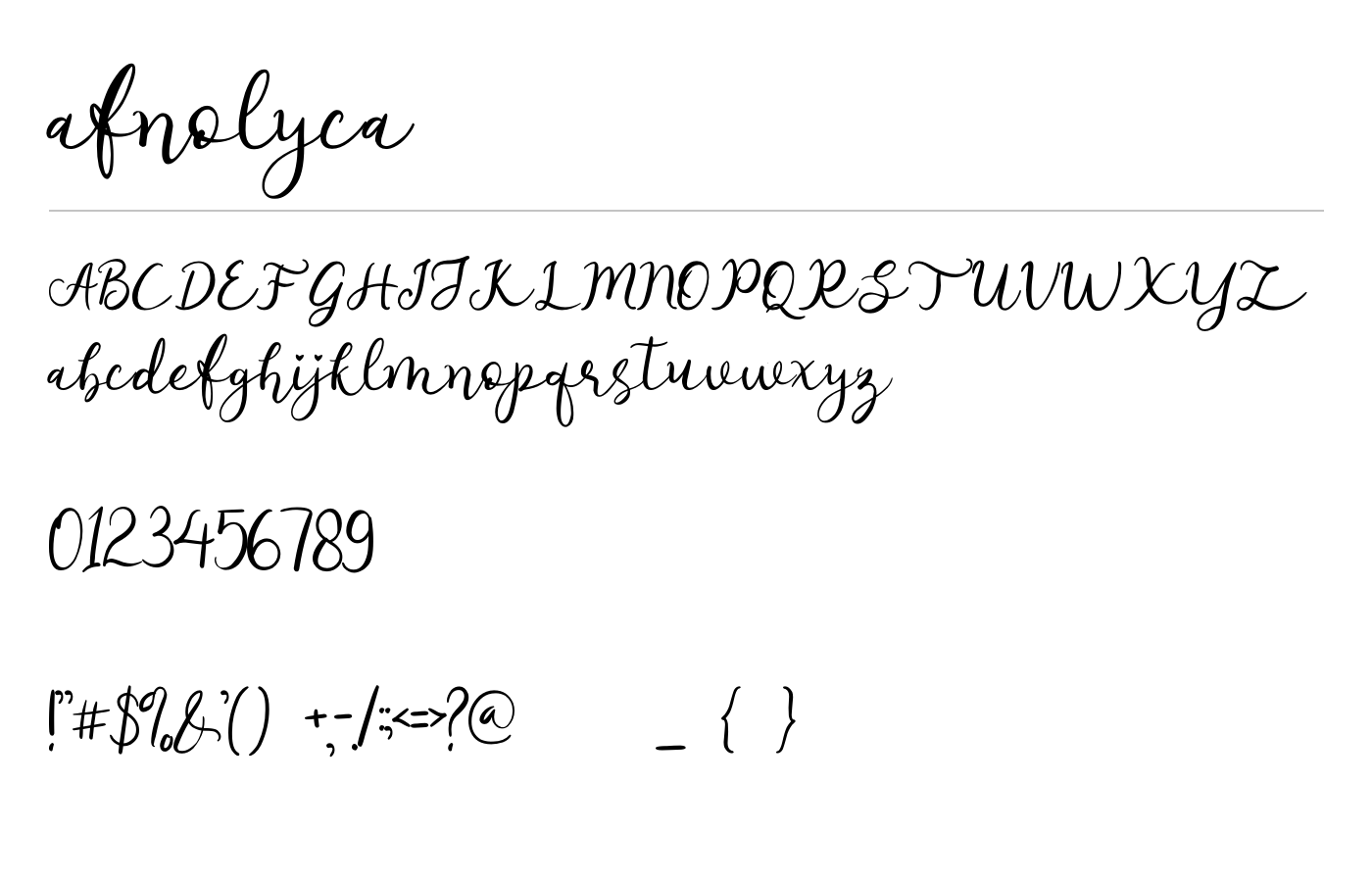
Afnolyca is a delicate and elegant script font that features smooth, flowing strokes with a hand-drawn feel. Its slender, slightly whimsical letterforms create a charming and approachable personality, making it perfect for invitations, branding, and creative projects that seek a friendly yet refined touch. This font works especially well for designs that aim to convey warmth and personal connection.
afnolyca Font
About afnolyca Font
| Font family | afnolyca Font |
| Designer | MJB Letters 2019 |